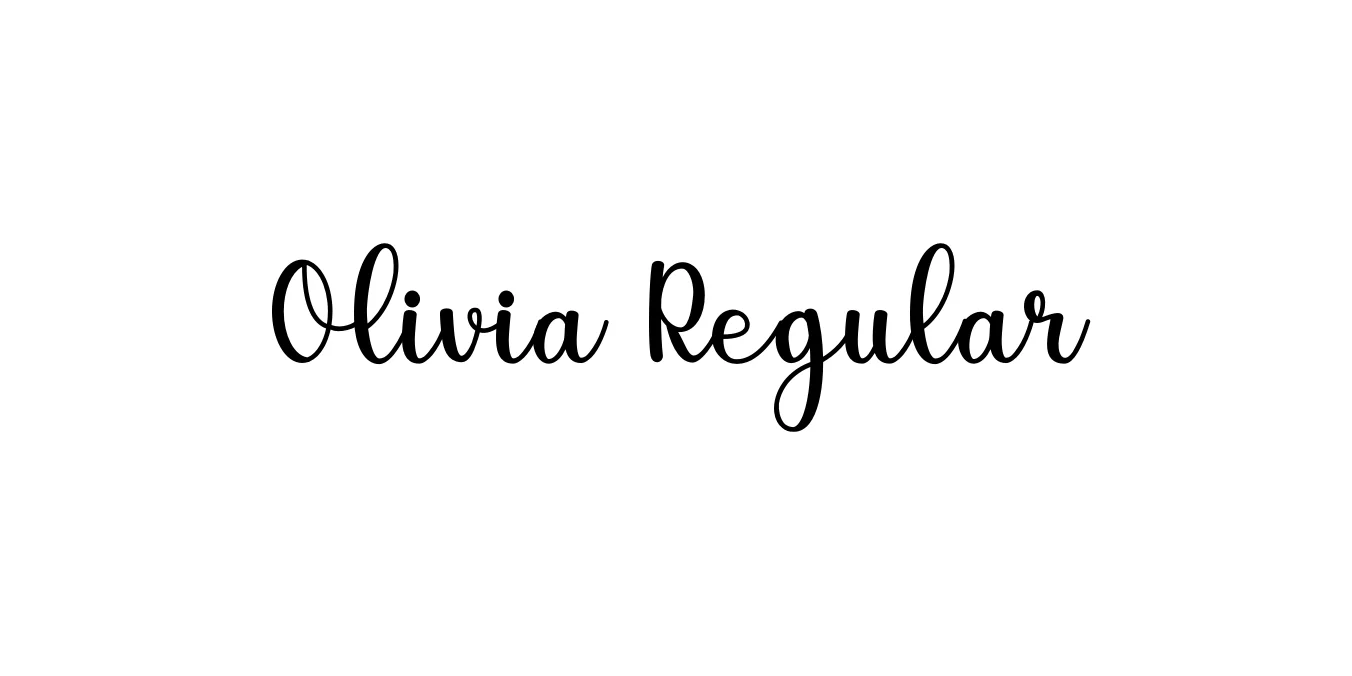
Olivia Regular
Designed by Haksen
Olivia Regular is a beautifully crafted modern calligraphy font that embodies elegance and sophistication. With its fluid, high-contrast strokes and graceful swashes, this typeface captures the essence of professional hand-lettering. It is designed to bring a touch of class and romance to any project, making it a favorite among graphic designers who specialize in high-end aesthetics and luxury branding.
Developed with versatility in mind, Olivia balances artistic flair with practical legibility. It has become a staple in the wedding industry and digital content creation due to its harmonious proportions and delicate curves. Whether used for a minimalist logo or an elaborate invitation, Olivia Regular maintains a consistent quality that enhances the visual storytelling of the design.
Olivia Regular Best Uses
Excellent for invitations, save-the-dates, and elegant place cards.
Perfect for luxury brands, boutique shops, and fashion-forward identities.
Adds a sophisticated touch to quotes and stylistic editorial posts.
Ideal for book covers, greeting cards, and high-end magazine headings.